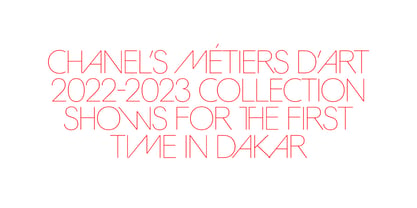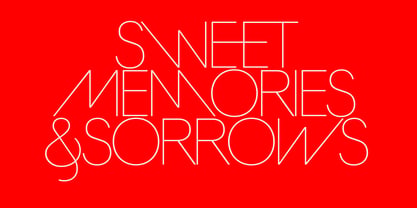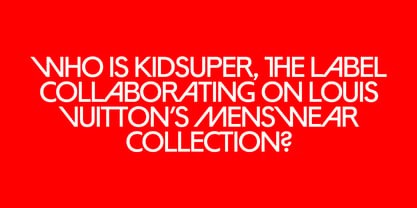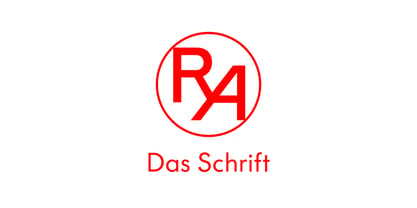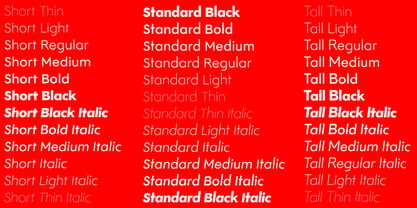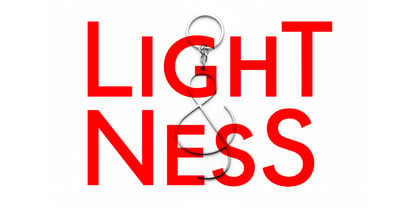
Regine
Regine typeface is our interpretation of Futura, enhanced by the influence of Gothic Avant-Garde. Regine transcends traditional geometric styles, featuring elegant uppercase ligatures and uniquely designed letterforms that exude sophistication. It comprises three subfamilies: ‘Short’ with a balanced x-height and ascender height. ‘Standard’ with a high x-height and elevated ascenders. ‘Tall’ tailored for Futura enthusiasts, showcasing a low x-height and prominent ascenders and uppercases. Across the design spectrum of this font, you can explore at least six weights along with their italics, allowing for creative combinations of alternate forms and diverse styles from the three families. Perfect for branding, editorial design, and web applications, Regine offers versatility and elegance for any project, making it an ideal choice for designers seeking a modern yet classic aesthetic.